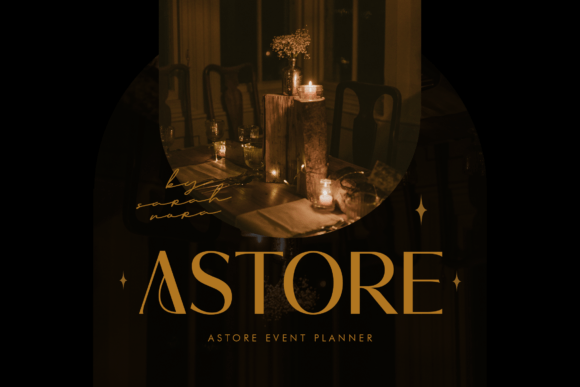
Marquez Font
Marquez – Modern Elegant Luxury Sans Serif – Beauty Fancy Girlboss Fashion Font
Marquez is perfect for your upcoming projects such as luxury logo and branding, classy editorial design, woman’s magazines, cosmetic brands, fashion promotional, art gallery branding, museum, boutique branding, stationery design, blog design, modern advertising design, card invitation, art quote, home decor, book/cover title, special events, and more.